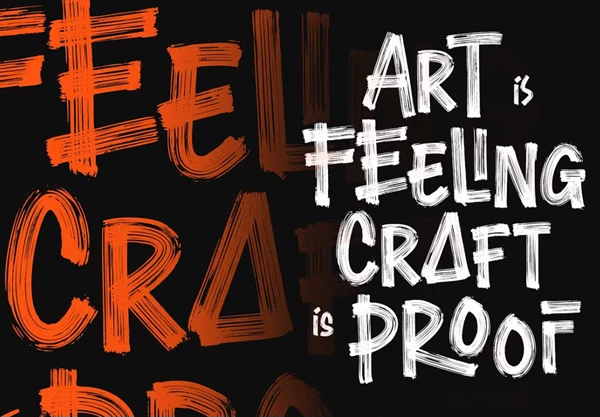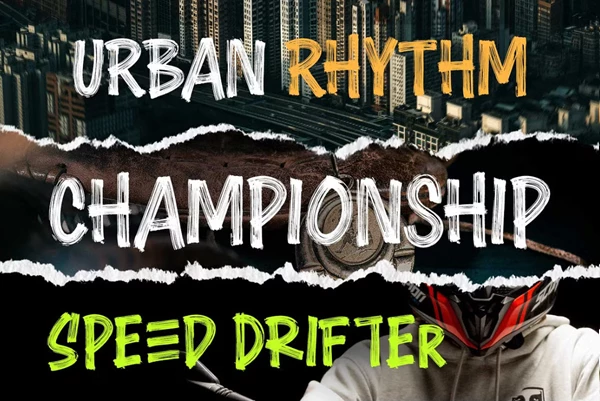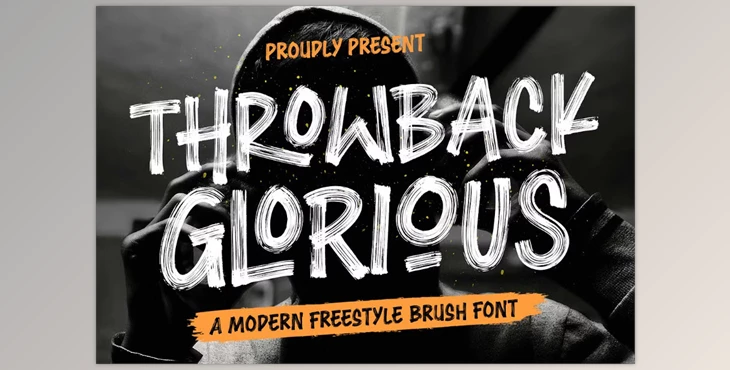
Dry Brush Font – Throwback Glorious Font:
This font is a dry brush stroke with a textured layer and textured characters. This font is the epitome of street style and freestyle calligraphy for a brush font that makes a bold statement. Each letter jumps off the page with purpose and an energetic spirit. Use this font for any branding endeavor, poster projects, and logo-based assignments that require a strong typeface, especially for urban-based athletic or stylistic themes. This font works great for any assignment about sports, city life, or fashion that needs a typographic personality.
- Uppercase characters only
- Numbers & symbols
- Punctuation
- Stylistic alternates
- Ligatures
- Multi-language support